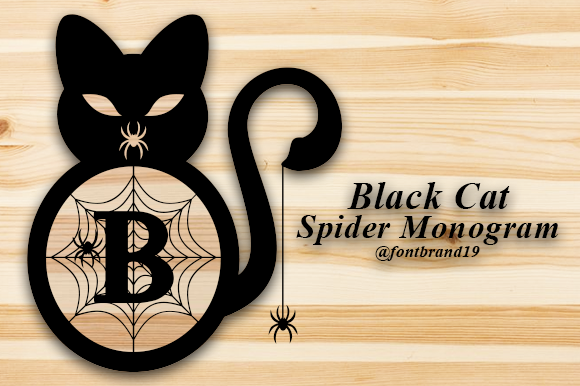
**Introducing Black Cat Spider Monogram: The Bewitching Font for Unforgettable Monograms**
Prepare to cast a spell on your designs with Black Cat Spider Monogram, an enchantingly spooky decorative font that will transform your creations into hauntingly beautiful masterpieces. Inspired by the mystical allure of Halloween, this font embodies the spirit of the season, adding an air of mystery and intrigue to your every word.
Crafted with meticulous attention to detail, Black Cat Spider Monogram dances across the page like a mischievous feline, its intricate web-like curves and sharp, pointed edges creating a captivating visual experience. Each letter is a work of art, adorned with delicate flourishes and playful swashes that evoke the magic of the night.
Unleash your creativity and let Black Cat Spider Monogram weave its spell on your designs. From alluring monograms to enchanting invitations, this font will add a touch of the extraordinary to all your endeavors. Its versatility knows no bounds, making it the perfect choice for a wide range of projects, from personal branding to eye-catching marketing materials.
Embrace the spirit of Halloween and let Black Cat Spider Monogram guide you through a world of captivating designs. Its haunting beauty and undeniable charm will make your words leap off the page, leaving an unforgettable impression on all who behold them.
**Features:**
* Spookily stylish decorative font
* Perfect for Halloween-themed designs
* Adds a touch of mystery and intrigue
* Versatile and suitable for a wide range of projects
* Intricate web-like curves and sharp, pointed edges
* Delicate flourishes and playful swashes
**Benefits:**
* Create hauntingly beautiful monograms
* Craft enchanting invitations and greetings
* Add a touch of magic to your branding
* Capture the spirit of Halloween in your designs
* Make your words leap off the page